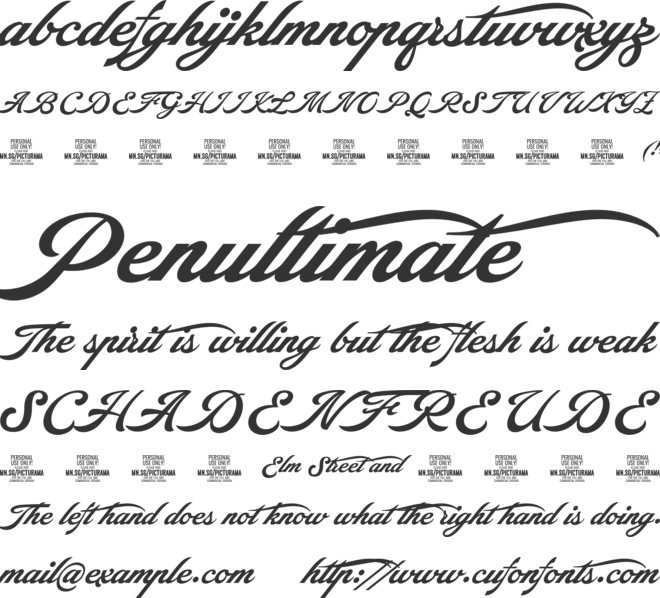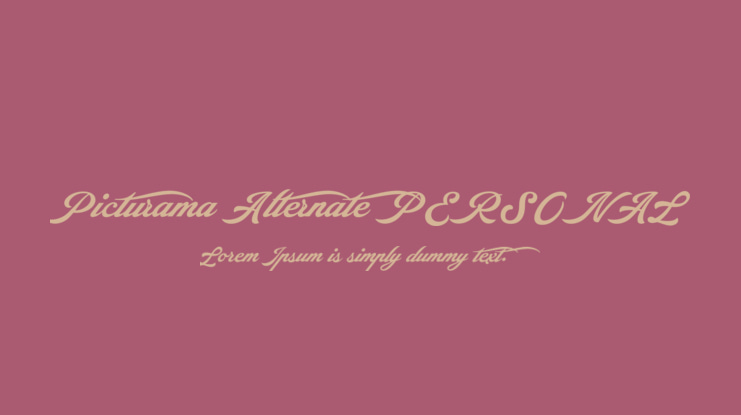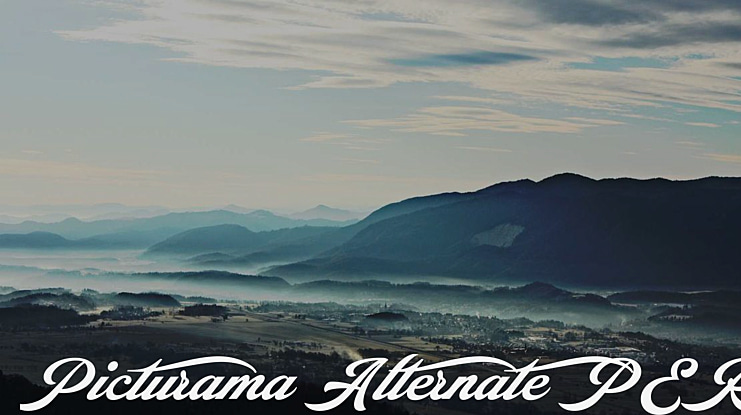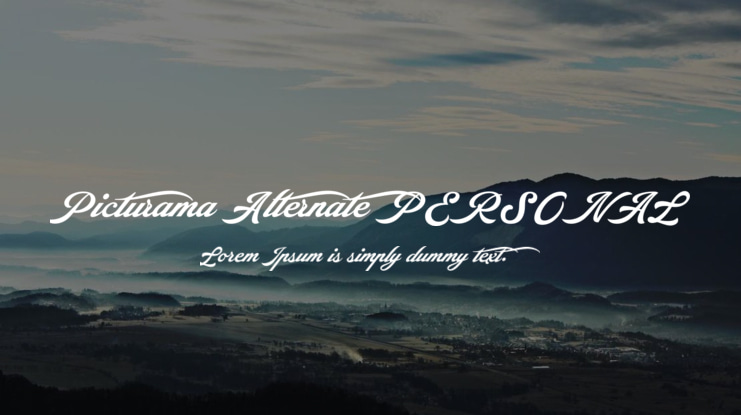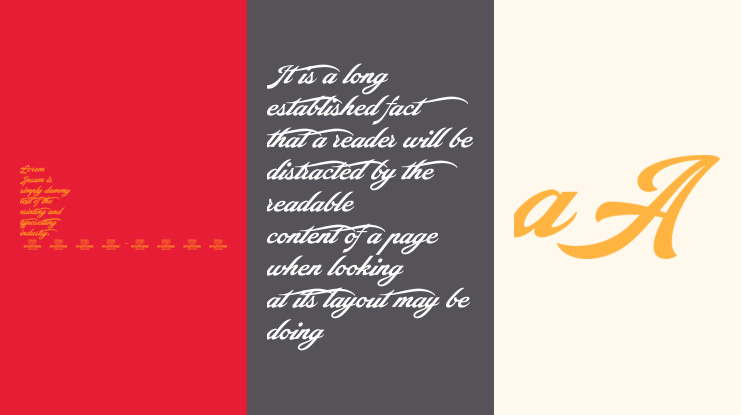
Picturama Alternate PERSONAL Font
Picturama Founder is a stunning script font that effortlessly combines traditional formality with modern innovation.
Each curve and connection within this sophisticated calligraphy type exudes elegance, reminiscent of timeless labels or vintage vinyl covers.